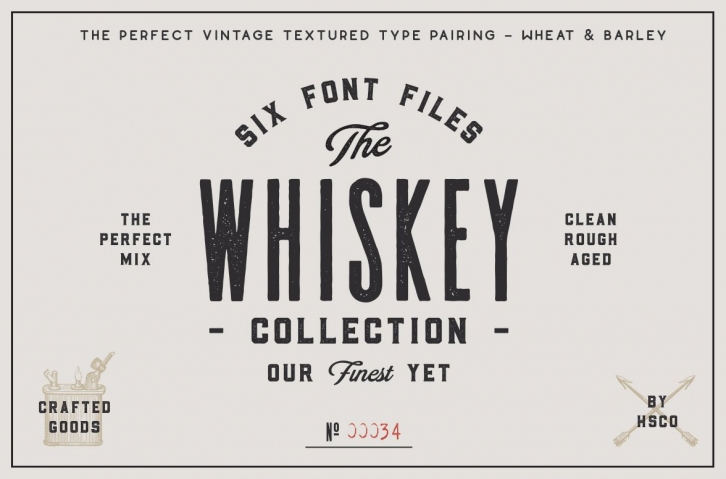
The Whiskey Font Collection
The Whiskey Font Collection is a type pairing of "Wheat" & "Barley". These two typefaces were literally made for eachother. They work together to give you that perfect vintage label you've been designing. These are perfect for Logos, Advertising, Apparel Design, Labels, Signage, Etc.
The 2 Typefaces come in 3 different styles; Regular, Rough, Aged (Distressed Letterpress Look). Wheat & Barley come with Western European characters. Barley also has a few added extras such as "and", "from", "for" and "with" inside of ribbons, alongside No., Co., & ESTd.